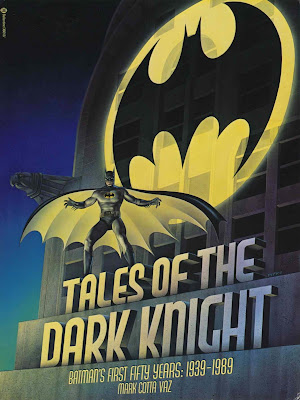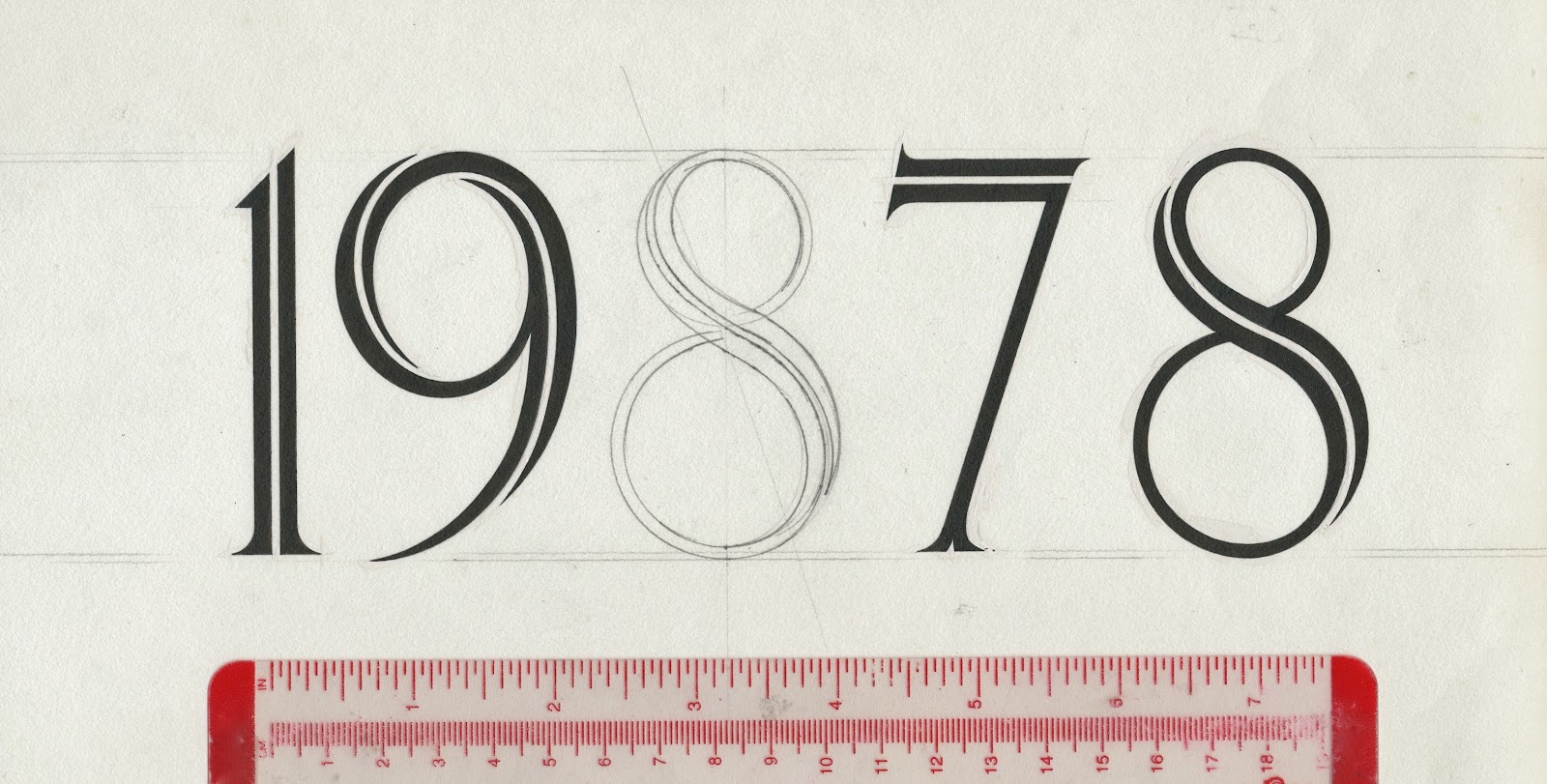
Lettering: Exotica Calendar for 1987
The Exotica Calendar for 1987 by Olivia DeBerardinis started at First Publishing. The publisher, Rick Obadiah, knew of me through Howard Chaykin who commissioned me to do the American Flagg! logo. I met Frank Miller once, in New York, before he moved to Los Angeles. During the Exotica project, I guess my name came up in regards to doing the title lettering and production for the calendar. Joel Beren, Olivia’s husband, discussed the project with me. It didn’t take much to convince me to accept the job, but it was a tight schedule to have the calendar, originally for 1986, printed in time for the 1985 holiday season.
Soon, a package arrived from First Publishing with Frank’s letter, transparencies of the art, layouts and reference material.
Frank’s letter to Rick.
Frank’s faxed letter to me. The last two sentences read: Please get in touch with First once you have an estimate of your fee, and please call me if there’s any trouble. I’ll rip their lungs out.
Some of Frank’s interior layouts.
Color comp of the front cover; the title was painted on acetate and has been flaking off.
Back cover
Photocopy of the alphabet reference
Frank’s title design
Reference for the letter “O”
Alternate letterforms and designs
Alternate letterforms and design
Tight pencil rendering
Tight pencil renderings of the title
Photocopy of pencilled letters partially filled-in
Photocopy of pencilled letters filled-in
A last-minute addition to the front cover was “Designed by Frank Miller”. I drew the letters “K” and “Z”, nearly completing the alphabet, missing the “Q” and “W”. The “Z” was used on another project.
The letters were drawn in pencil on tracing paper, which was placed on a light box. One-ply bristol board was positioned over the tracing paper then I began inking the outlines. The next step was filling in the black areas. I used white gouache to make corrections.
Photostats of the title and months; some words are missing letters because I cannibalized them to make words for another project.
A variety type arrangements for the front cover.
This arrangement was chosen.
Under Cover: Tales of the Dark Knight
Mark Cotta Vaz proposed to DC Comics a book celebrating Batman’s fiftieth anniversary. This book was handled by Joe Orlando, who was DC Comics’ Editor for Special Projects. Ballantine Books was chosen to publish the book.
MONDAY, JUNE 27, 1988
10:00 AM meeting at Ballantine Books, 201 East 50th Street, with Risa Kessler, editor, Stephen McNabb, copy editor, Fred Dodnick, production manager, and Alex Klapwald, production assistant.
At the meeting I was given a copy Vaz’s proposal plus a number of Batman books and posters for reference. Risa Kessler wanted the cover to incorporate Batman into the city architecture/skyline as Frank Miller had done in one of his Dark Knight Returns illustrations. She also hoped to get Miller to do the cover for this book. A date was set for me to present cover concepts.
SUNDAY, JULY 24, 1988
I began working on cover concepts. I incorporated Batman into the skyline with a bat reflected in the river. The title was off to the side like the Dark Knight Returns book.
One of the reference books from DC was Batman: Son of the Demon which showed Batman atop a building. I thought of trying something similar to what Will Eisner had done on the splash pages of The Spirit in which the letters S-P-I-R-I-T are part of the scene
What I came up with wasn’t clever like The Spirit but more like the biblical movie posters for Ben-Hur and King of Kings; the titles were in perspective and built of stone with characters from the movie placed in and around the letters.
I always preferred the Chrysler Building over the Empire State Building. The title became part of the architecture. Like the Son of the Demon cover, I had Batman looking down at the street.
FRIDAY, AUGUST 5, 1988
11:45 AM meeting at Ballantine Books to present my cover concepts.
Risa liked the concept of Batman in the skyline but Stephen, Fred and Alex preferred Batman on the
Chrysler Building (my favorite, too). The concept of Batman on the Chrysler Building plus photos of the Chrysler Building, for reference, were sent to DC Comics.
A few weeks later, the finished illustration was delivered to Ballantine Books. Sigmond Pifko, the illustrator, did the airbrush art on 30 x 40 inch illustration board. I was given an 8-by-10-inch color transparency of the illustration so I could do the cover mechanical. Using a scanner drum to make color separations of the art was the norm in the publishing industry. The transparency I had could have been scanned but Fred decided to make a conventional camera separation from the original illustration. As you may know, a transparency has a slight blueish tint. The typeface for the subtitle and author’s name was supplied by Photo-Lettering who photographically manipulated the type to match the perspective of the title. The book was published shortly after the release of Tim Burton’s Batman movie.
Cover proof; originally, the book measured